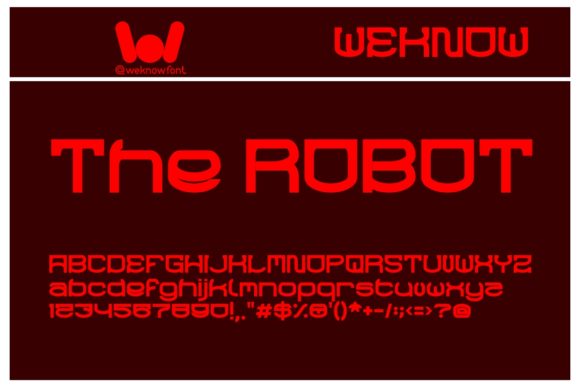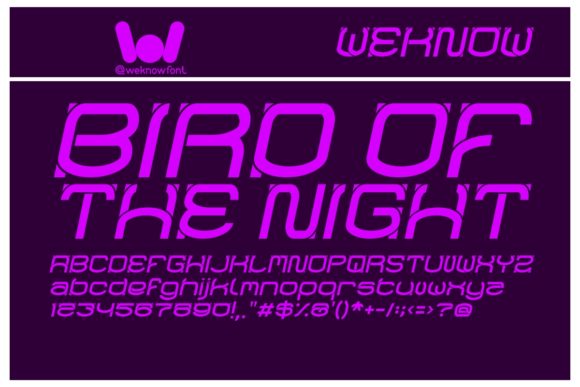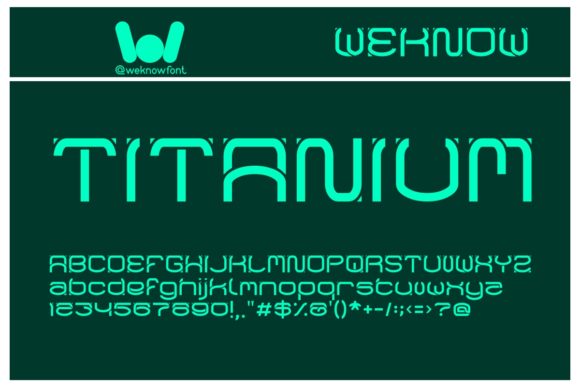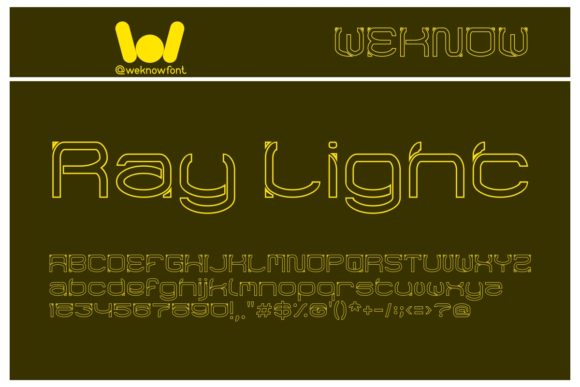
Introduction to Raynaliz Font
Have you ever been stuck in a creative rut, staring at a blank page, desperate for the perfect design element to bring your project to life? For many designers, this is a familiar scenario. But what if you had a secret weapon in your design arsenal, a font that could elevate your ideas and take your creative project to the next level?
Meet the Raynaliz Font, a fashionable and cool display font that’s sure to make your designs stand out. With its perfect blend of trendiness and style, this high-quality font is a valuable resource for any designer looking to add a touch of sophistication to their work.
Key Features of Raynaliz Font
- High-quality design resource ideal for creative projects, with a unique and elegant style.
- Transparent background, making it perfect for use on images with complex backgrounds or for creating custom designs.
- Comes in a range of sizes, including small caps, caps, and lowercase letters, with a resolution of 300 DPI.
- Raynaliz Font is a versatile design resource that can be used for a variety of creative projects, from branding and marketing materials to digital products and more.
Honest Review: Raynaliz Font
As a designer, I’m always on the lookout for high-quality design resources that can elevate my creative projects. The Raynaliz Font is a great addition to any design arsenal. ✨ Its modern and elegant design makes it perfect for a variety of applications, from branding to web design.
One of the standout features of the Raynaliz Font is its transparency, allowing you to easily customize it to suit your design needs. This level of flexibility is a game-changer for designers who want to create unique and engaging content.
- Modern and elegant design
- May not be suitable for all design projects (e.g. formal documents)
- Some users may find the font too stylized for their taste
Overall, I’m impressed with the Raynaliz Font and would highly recommend it to designers who are looking for a high-quality, versatile font for their creative projects. With its transparent background and elegant design, it’s a great addition to any design resource library.
Tips for Getting the Most Out of Raynaliz Font